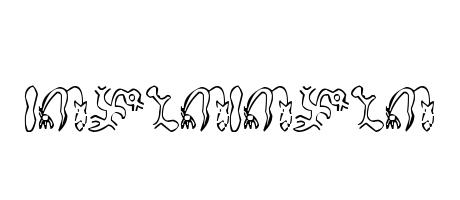
Rongorongo
By zanatlija
Rongorongo, a mysterious script from Easter Island, resembles a playful dance of glyphs. Each character is a unique, stylized creature, a blend of abstract forms and organic lines. The overall effect is both primitive and surprisingly elegant, hinting at a lost language and a rich, untold story. Its irregularity adds to its enigmatic charm.